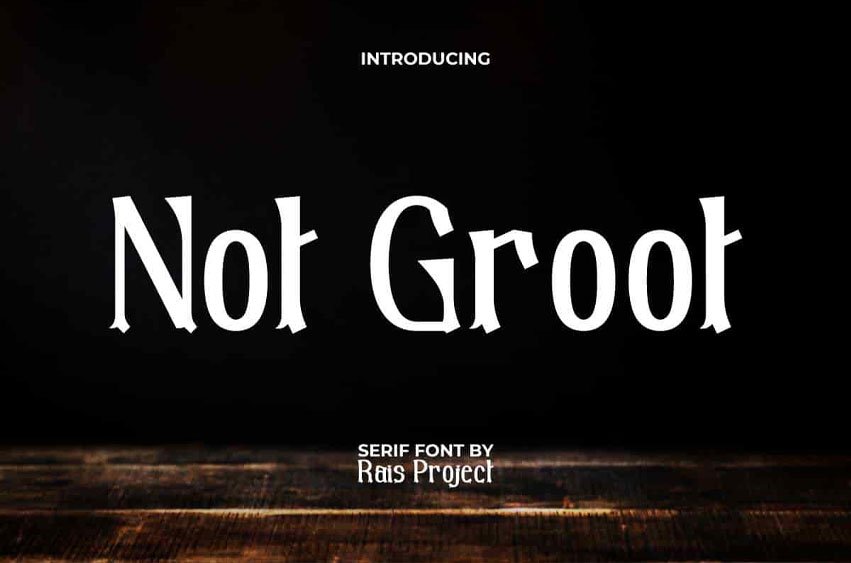
Not Groot Font
Not Groot Font is a fun yet casual and modern serif display font. The shape of this font adapted to the adorable Groot character! It will be good for any designs, such as brand logo, cover, custom design, greeting card, invitation, label, magazine, menu, poster, product packaging, quote, signage, web, and more!
Not Groot Font includes a full set of Uppercase and Lowercase Letters, Numerals, and large range of punctuation. This unique font will be suitable for various industries, such as accessories, café, event, fashion, game, movie, photography, printing, publishing, etc.